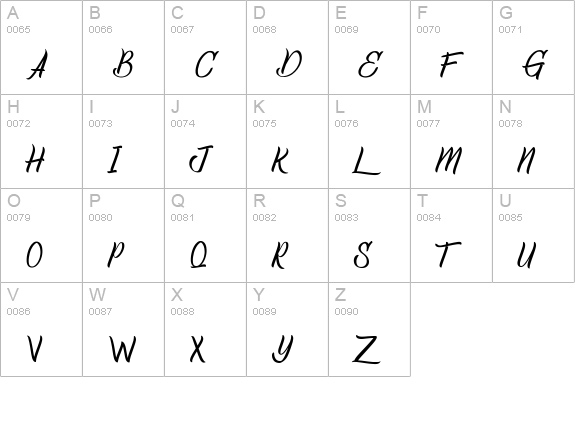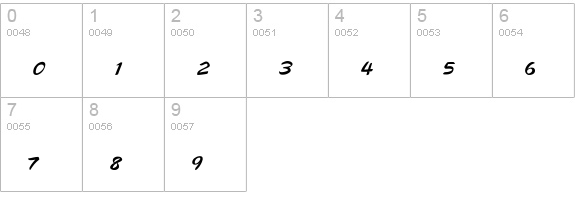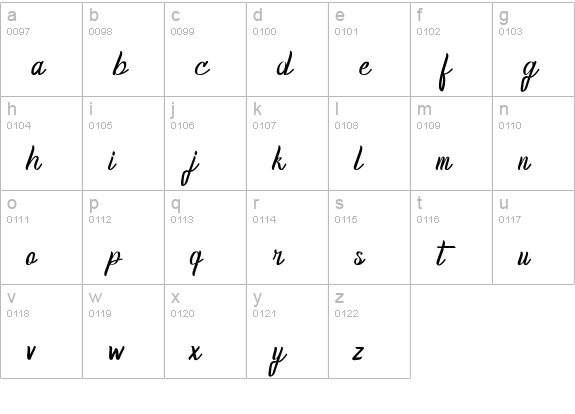
Homerun - Bold Script Font Details
Homerun - Bold Script is a strong, high-contrast variant in the Homerun typeface family \xE2\x80\x94 well suited to headlines, attention-grabbing titles, and strong calls-to-action.
Introducing Homerun - Bold Script font, a stunning typeface that exudes elegance and sophistication. With its bold and dynamic strokes, this font is perfect for creating eye-catching designs that command attention. Whether you're working on a logo, poster, or branding project, Homerun - Bold Script font will elevate your work to new heights.